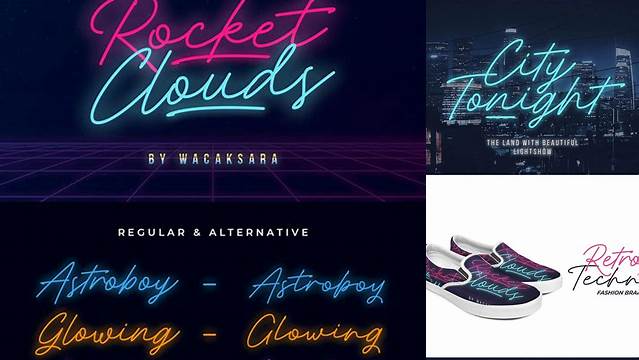
Hey there, awesome designers and creative minds! Are you looking to infuse some vibrant, electric energy into your projects? Well, you've landed in the perfect spot because today we're diving deep into the dazzling world of the Rocket Clouds Neon Font. This isn't just any typeface; it's a statement, a mood, and an absolute game-changer for anyone craving that eye-catching, glowing aesthetic. We know how much you guys love finding high-quality resources without breaking the bank, and that's exactly what we're talking about today: the Rocket Clouds Neon Font free download. We're not just going to tell you where to get it; we're going to walk you through everything, from downloading and installing it to unlocking its full potential across various design projects. So, buckle up, because we're about to make your designs glow brighter than ever before!
Understanding Rocket Clouds Neon Font
Rocket Clouds Neon Font isn't just a fancy name; it perfectly encapsulates the dynamic and electrifying essence of this typeface. Imagine the vivid, glowing lines of a neon sign, but with a modern, almost futuristic twist, like streaks of light left by a rocket soaring through a cloud-filled sky. That's the vibe this font brings to the table, guys! It's characterized by its clean, flowing lines that simulate the tubular glow of real neon. Each character in the Rocket Clouds Neon Font is designed with meticulous attention to detail, ensuring that when you apply it to your projects, it immediately stands out. It's got that undeniable retro-futuristic charm that's been making a huge comeback in everything from branding to social media content. Think 80s arcade vibes, synthwave aesthetics, or even contemporary urban art – this font fits right in, adding a pop of color and an unmistakable, edgy personality. Its versatility is truly impressive; whether you're aiming for something playful and energetic or sleek and sophisticated, the Rocket Clouds Neon Font can adapt. We're talking about a font that can instantly elevate a simple text into a captivating visual element. It's often the go-to choice for designers who want to convey excitement, innovation, or a touch of nostalgic coolness. The unique design of the Rocket Clouds Neon Font allows it to maintain legibility even with its stylized appearance, which is super important when you're trying to make an impact without sacrificing clarity. So, if you're ready to inject some serious visual punch into your work, understanding what makes this font tick is your first step. It's all about that unmistakable neon glow, the bold curves, and the vibrant personality that makes it shine.
The Appeal of Neon Fonts in Design
Alright, let's talk about why neon fonts, and specifically the Rocket Clouds Neon Font, are practically irresistible to designers. There's just something inherently captivating about neon, isn't there? It’s not just a trend; it's an aesthetic that evokes a powerful sense of nostalgia for the vibrant 80s and 90s, while simultaneously feeling incredibly futuristic and cutting-edge. The appeal of neon fonts like Rocket Clouds Neon Font lies in their ability to inject an immediate jolt of energy, excitement, and a distinctive personality into any design. They're bright, bold, and demand attention, making them perfect for headlines, logos, posters, and anything that needs to pop. Think about it: a well-chosen neon typeface can transform a bland design into a dynamic masterpiece. This unique visual impact stems from the way neon signs physically glow, and how designers have cleverly translated that luminous quality into typography. It’s about more than just color; it’s about the illusion of light, the sharp contrasts, and the undeniable sense of modern cool that comes with it. Beyond the aesthetic, neon fonts are incredibly versatile. They can be used to create a retro arcade vibe, a sleek cyberpunk look, a trendy vaporwave feel, or even a contemporary urban style. The Rocket Clouds Neon Font is a prime example of this versatility, offering a blend of retro charm and modern flair that makes it suitable for a wide range of projects. Designers often gravitate towards these fonts because they offer an instant shortcut to a specific mood or era, allowing them to communicate complex ideas and emotions with just a few illuminated letters. Plus, let's be real, who doesn't love a bit of sparkle and shine in their designs? The appeal of neon fonts is rooted in our human fascination with light and color, and how these elements can be manipulated to create visually stunning and emotionally resonant experiences. It’s all about making your message glow.
Creative Uses for Rocket Clouds Neon Font
Now that you've got the Rocket Clouds Neon Font free download installed, the real fun begins: exploring all the incredible ways you can use this vibrant typeface in your creative projects! This font isn't just for looking pretty; it's a powerful tool to inject personality, excitement, and a unique aesthetic into almost anything you're working on. One of the most obvious, yet highly effective, uses is for branding and logo design. Imagine a sleek, modern tech startup, a retro arcade, or a lively nightclub – the Rocket Clouds Neon Font can instantly define their visual identity, making their logo unforgettable and giving it that electric edge. Beyond logos, think about event promotion. Flyers, posters, and digital banners for concerts, parties, or gaming tournaments will absolutely shine with this font. It grabs attention and promises an exciting experience, perfectly reflecting the energy of the event. For social media content, the Rocket Clouds Neon Font is a godsend. Headlines for Instagram stories, YouTube thumbnails, TikTok text overlays, or Facebook event covers – it makes your message pop and scroll-stoppingly engaging. It's fantastic for quotes, calls to action, or any short, impactful text you want to highlight. Moving into digital art and illustration, this font can be integrated into futuristic cityscapes, synthwave album covers, or cyberpunk character designs, adding an authentic glowing text element. And what about website design? Hero sections, navigation menus, or bold calls to action can all benefit from the distinctive glow of Rocket Clouds Neon Font, creating a memorable user experience. For merchandise, think t-shirt designs, mug prints, or phone cases – a striking neon font design can be a best-seller. Even in video projects, animated text intros or lower thirds using this font can elevate production value, giving it a professional, energetic feel. The key is to embrace its inherent boldness and luminescence. Don't be afraid to pair it with dark backgrounds to maximize its glow, or use subtle textures to enhance its digital sign aesthetic. Guys, the possibilities with Rocket Clouds Neon Font are truly endless, limited only by your imagination, so go wild and let your creativity glow!
Designing with Rocket Clouds Neon Typography
Designing with Rocket Clouds Neon Typography isn't just about slapping the font onto your project; it's about understanding its nuances to truly make it shine. Once you've got your Rocket Clouds Neon Font free download ready, the next step is to master how to wield its power effectively. The first crucial tip, guys, is to understand that neon fonts inherently demand attention. This means they are best used sparingly for headlines, subheadings, or short, impactful statements. Overusing them can quickly lead to a cluttered and overwhelming design, defeating the purpose of their eye-catching nature. Think of it as a spotlight – you want to illuminate your most important elements. Another vital aspect is contrast. Rocket Clouds Neon Font truly comes alive against dark or muted backgrounds. A deep black, a dark navy, or a charcoal grey will make the simulated glow of the neon pop dramatically, creating that authentic electric sign effect. When pairing it with other fonts, opt for clean, sans-serif typefaces for body text that offer strong legibility and don't compete with the neon's flamboyant style. Simplicity is key in supporting text. Don't forget about color psychology. While the font itself mimics neon, you have full control over the specific colors you use. Bright blues, vivid pinks, electric greens, and fiery oranges are classic neon choices that evoke different emotions and aesthetics. Experiment with gradients within the text to create an even more realistic glow, or add a subtle outer glow effect in your design software to enhance the luminosity. Pay attention to kerning and tracking – sometimes, custom fonts need slight adjustments to letter spacing to look perfect, especially when simulating a continuous neon tube. And finally, consider the context of your design. Is it retro, futuristic, playful, or edgy? The Rocket Clouds Neon Font can fit many styles, but ensuring it aligns with your overall design theme will make it feel cohesive and professional. Mastering these elements will transform your designs from good to absolutely glowing, making your Rocket Clouds Neon Typography a standout feature that grabs and holds attention.
Rocket Clouds Neon Font in Graphic Design Projects
When it comes to graphic design projects, incorporating the Rocket Clouds Neon Font can elevate your work from mundane to magnificent, giving it that professional and super trendy edge. You've already got your Rocket Clouds Neon Font free download ready, so let's brainstorm some fantastic applications, guys! Imagine designing a poster for a music festival. The main band names or the festival title rendered in Rocket Clouds Neon Font would immediately catch the eye, promising an electrifying experience. Pair it with a dark, textured background and some complementary graphics, and you've got a visual masterpiece that screams